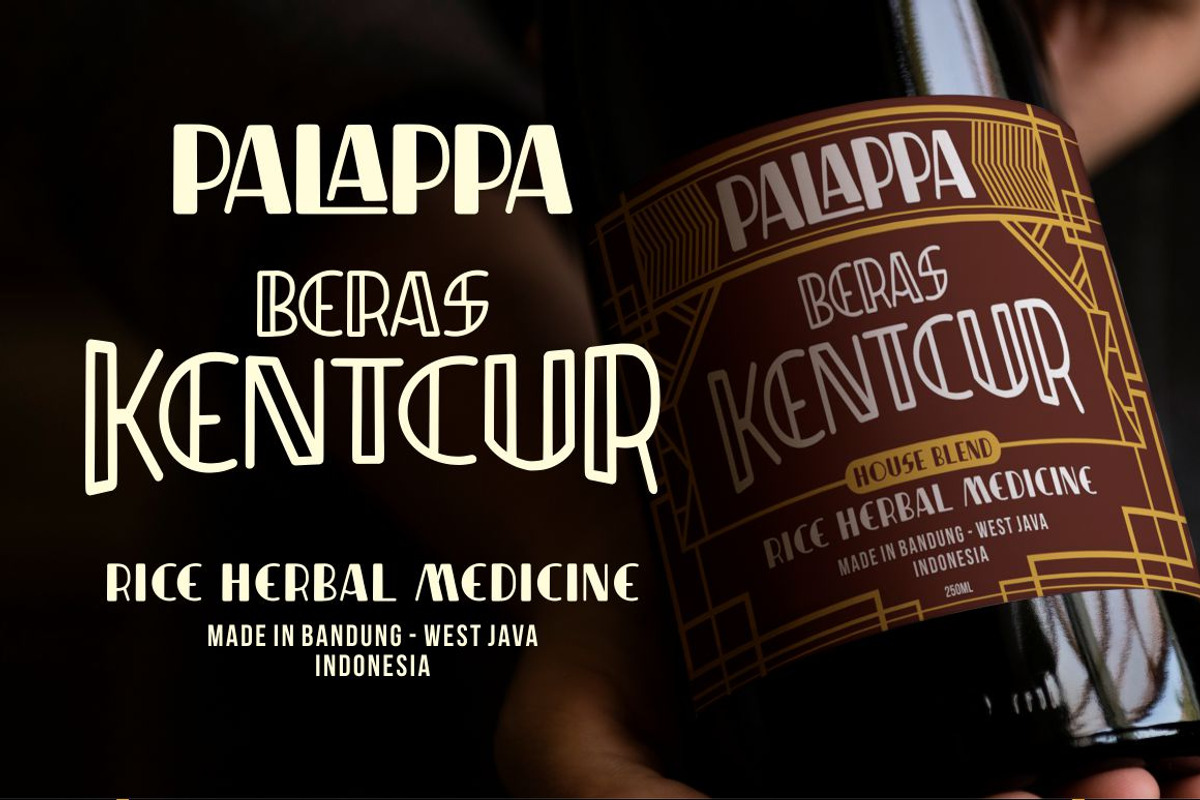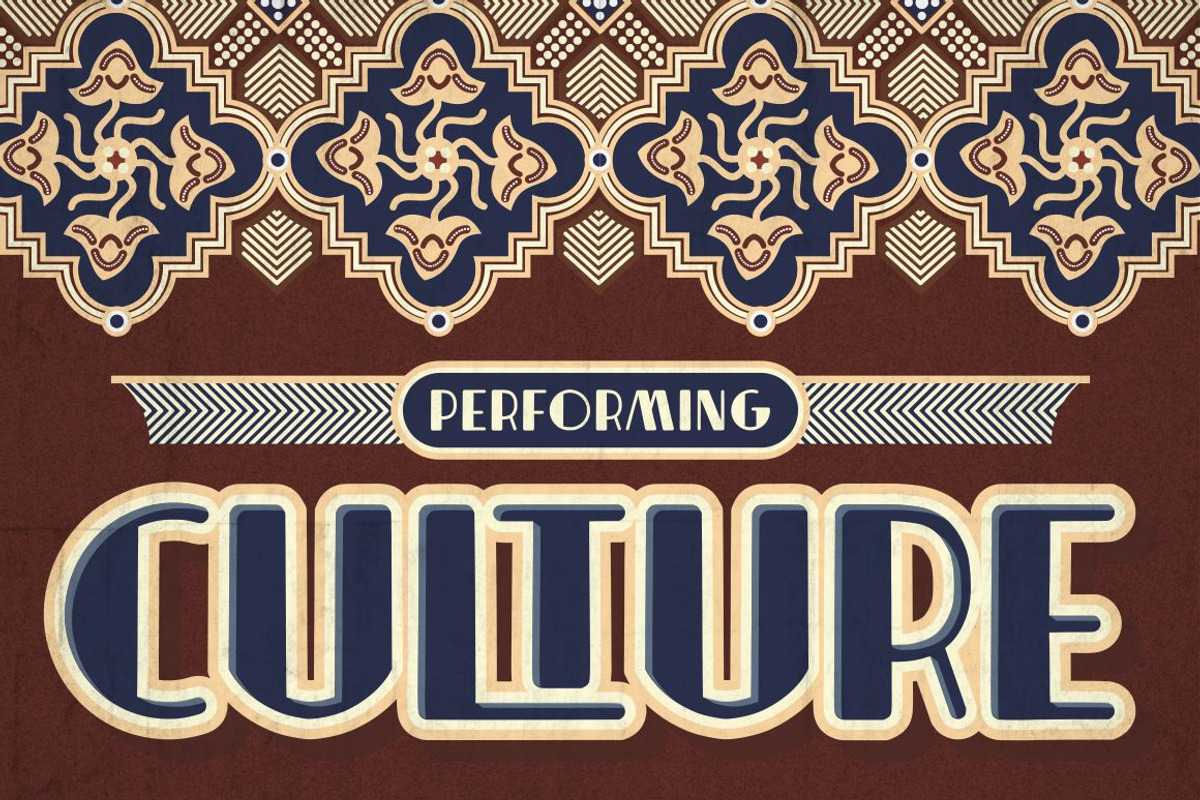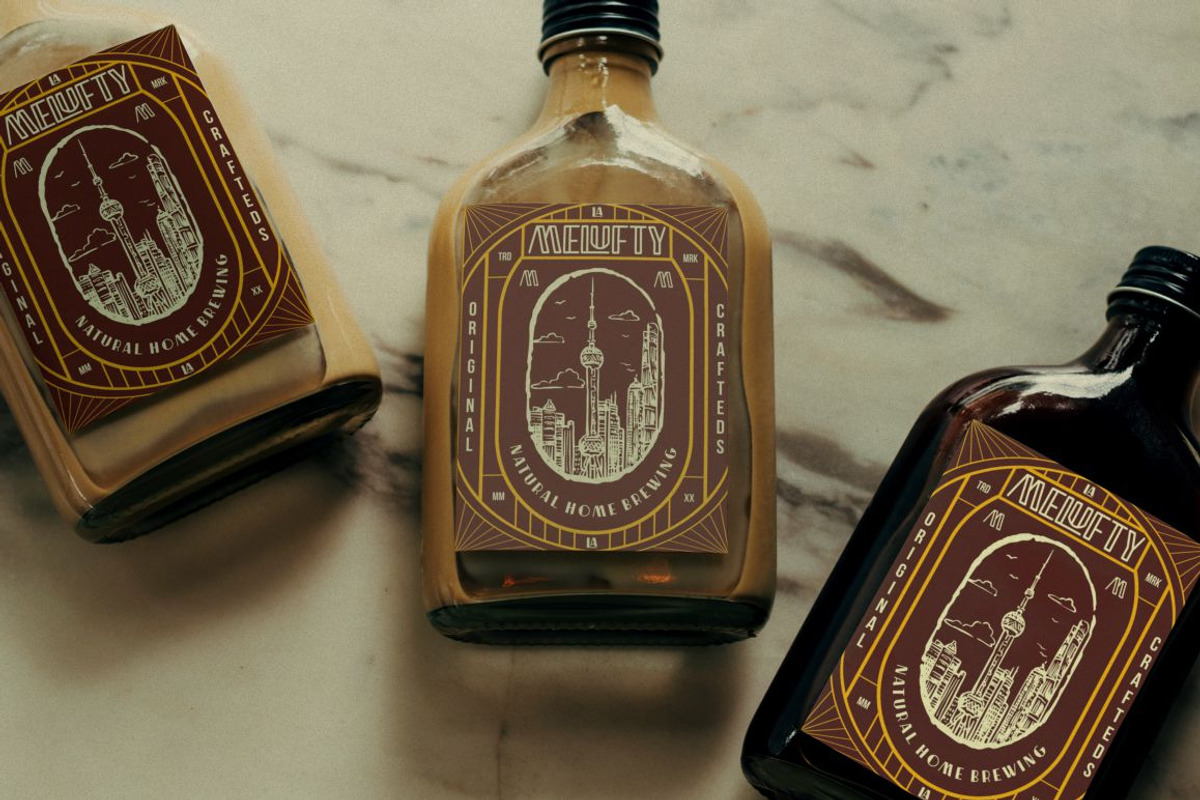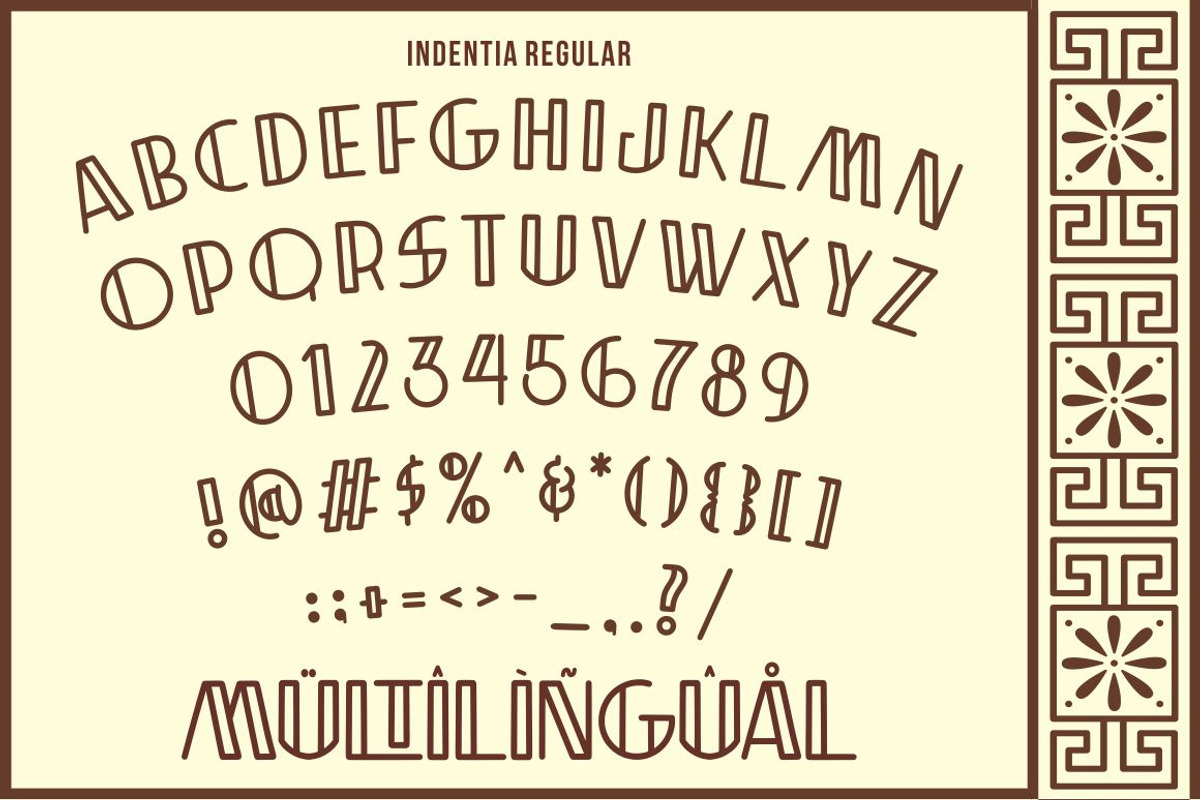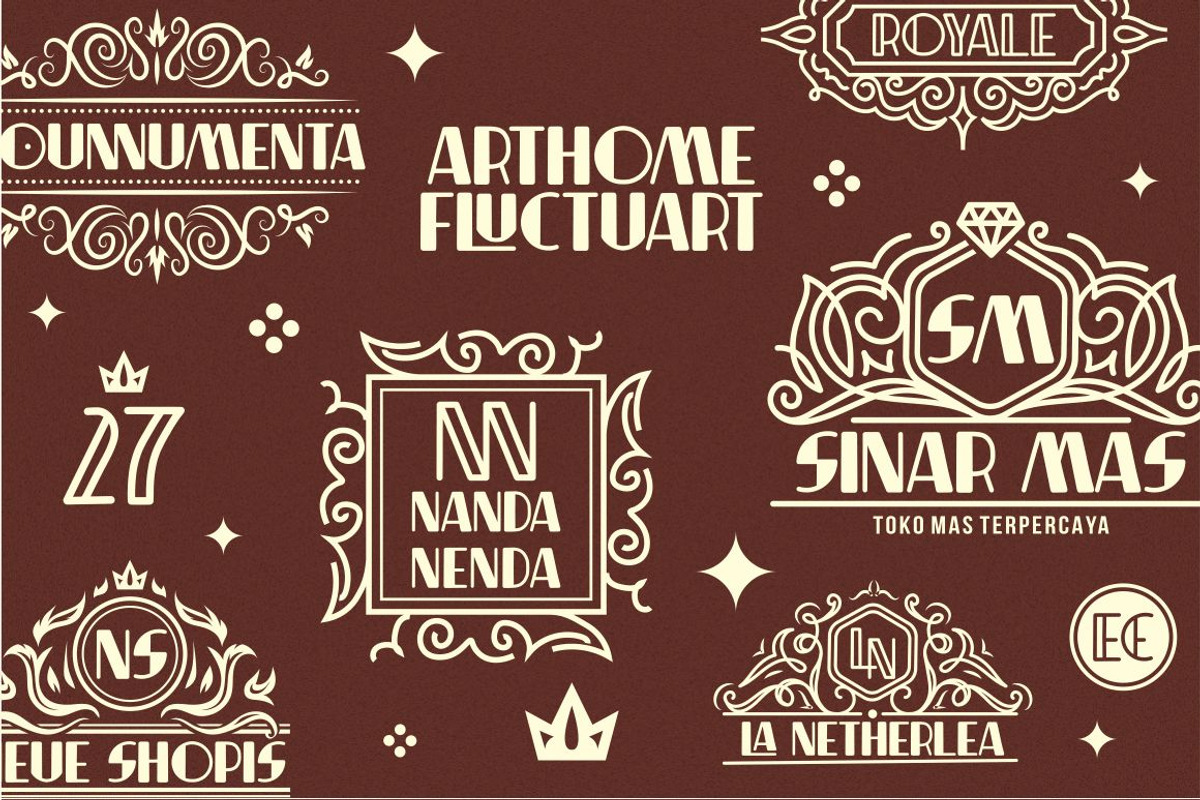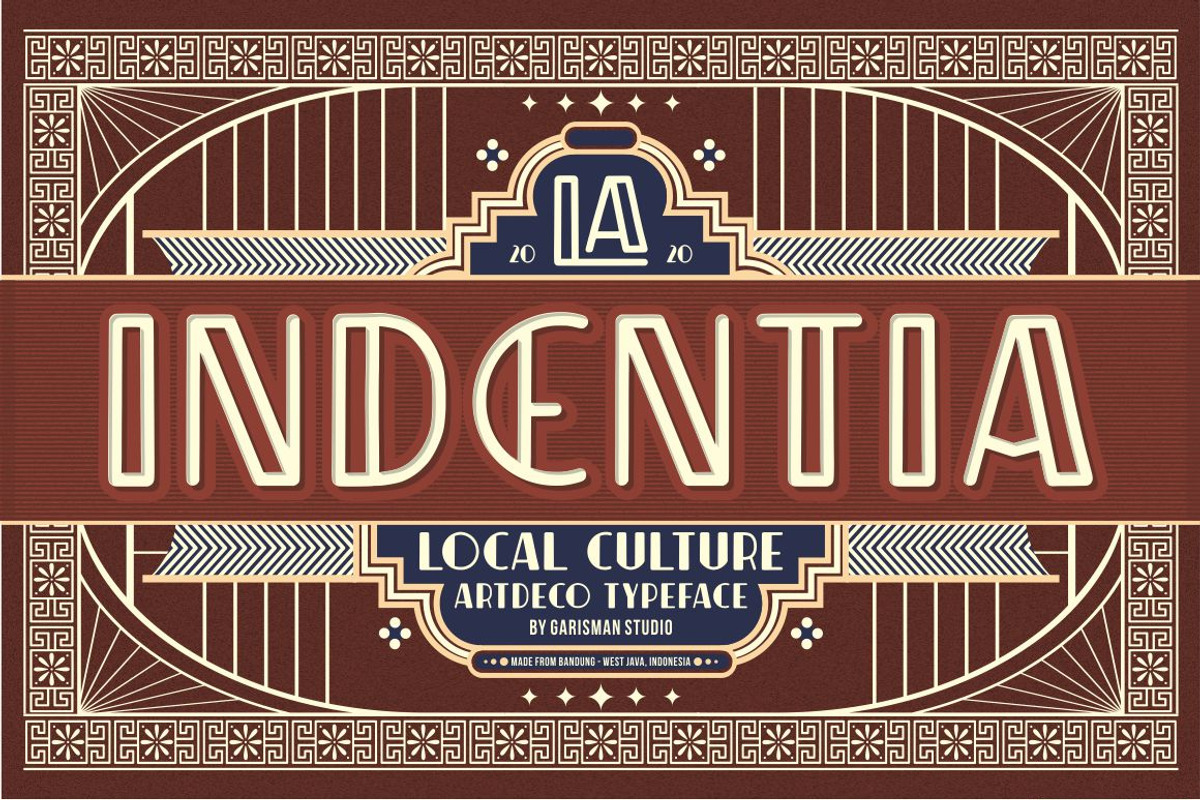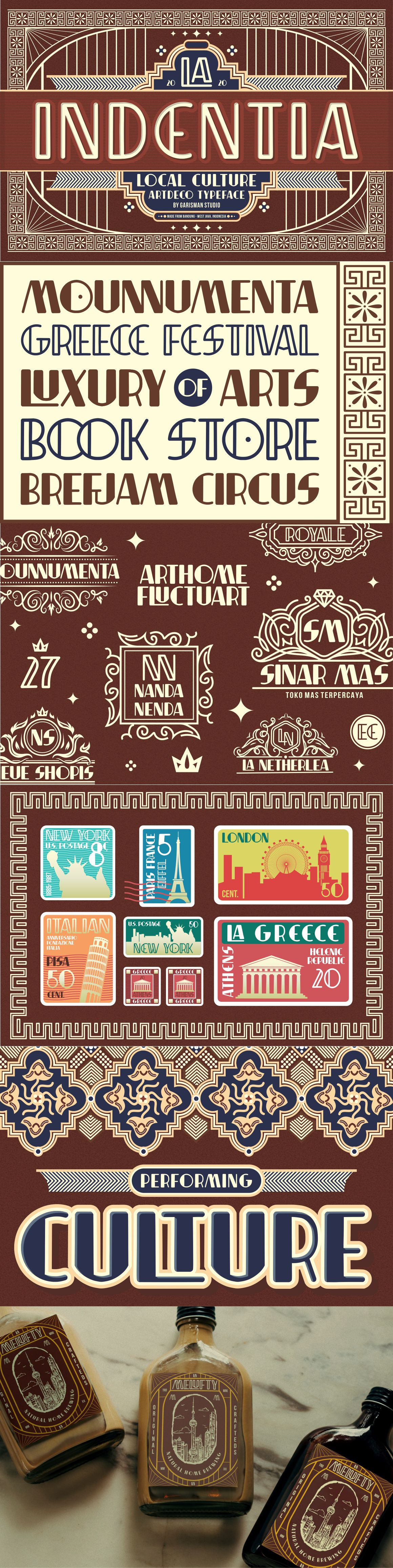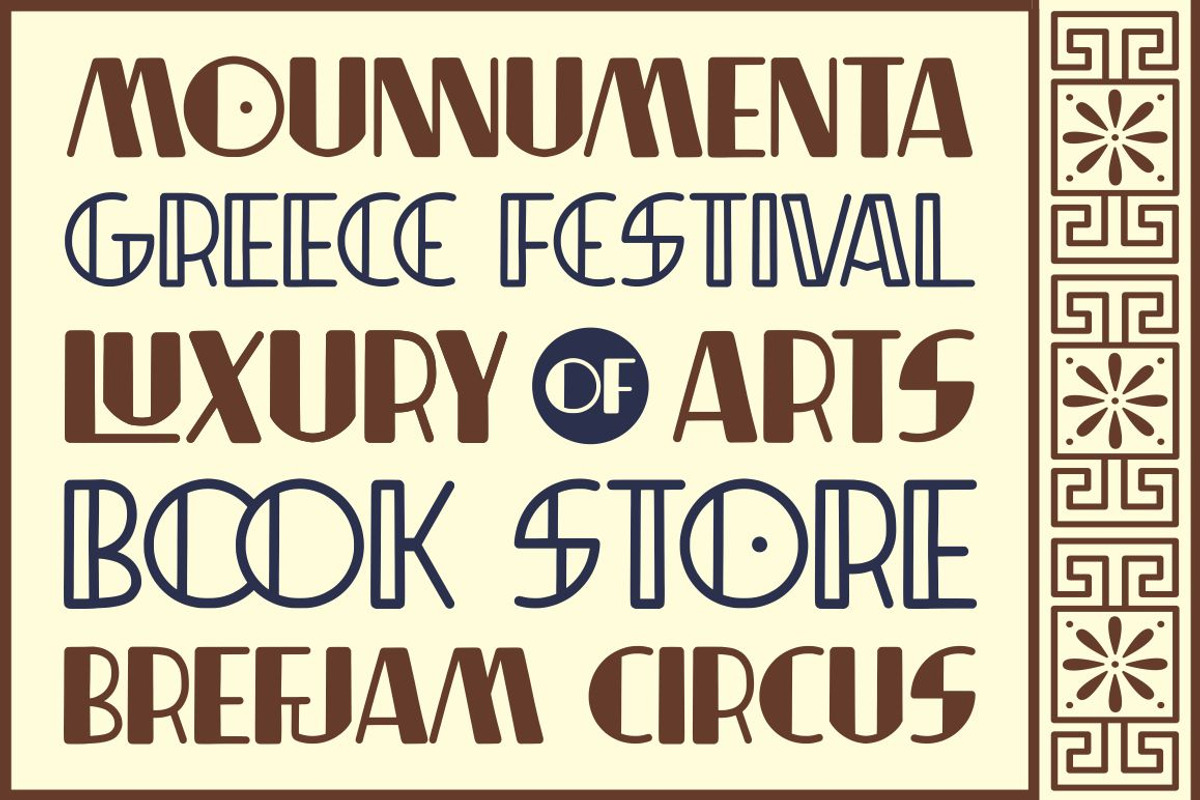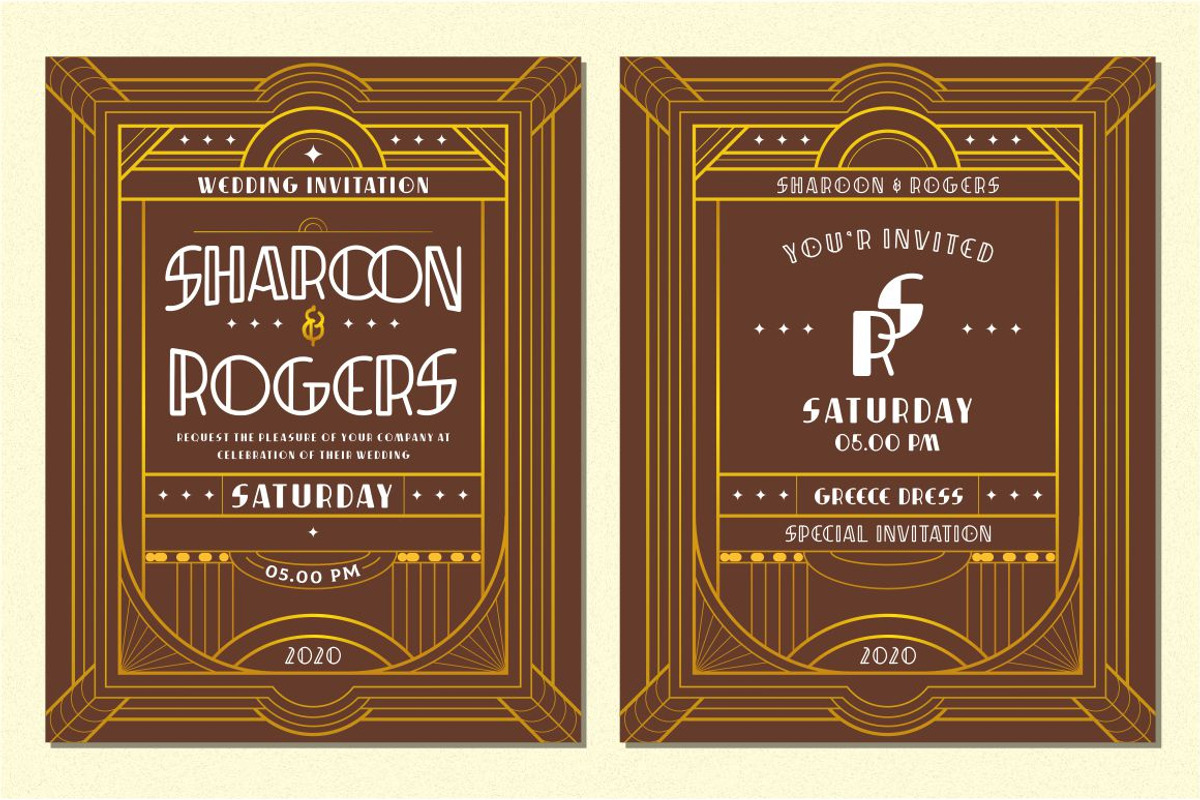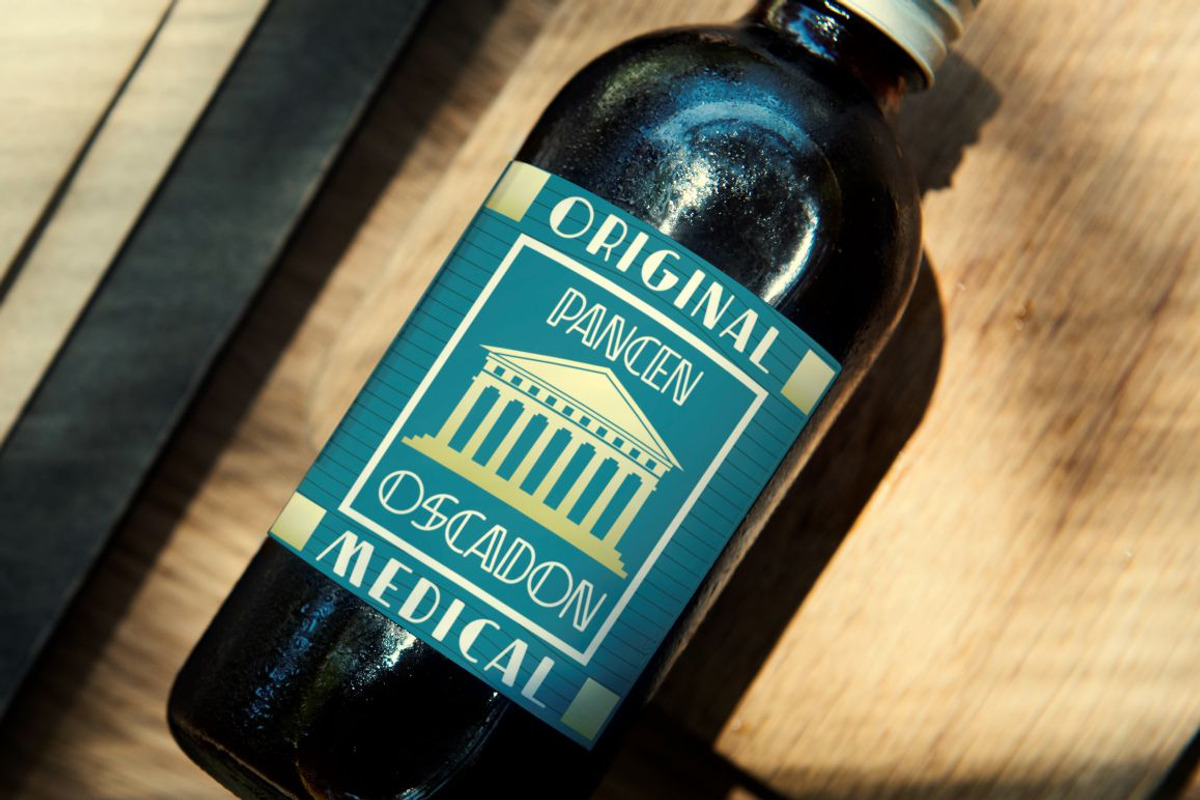
Indentia - Art Deco Typeface
Indentia is a very interesting font, which has been inspired by Art Deco art. It is formed from very careful lines with stylistic set and ligature features. Indentia has 200+ glyphs consisting of two styles: Indentia Regular and Indentia Black.
Indentia Features :
- Stylistic Set & Ligatures
- 200+ Characters
- Unique Ligatures
- Multi-Language Support with accent
- Numeral and Punctuations